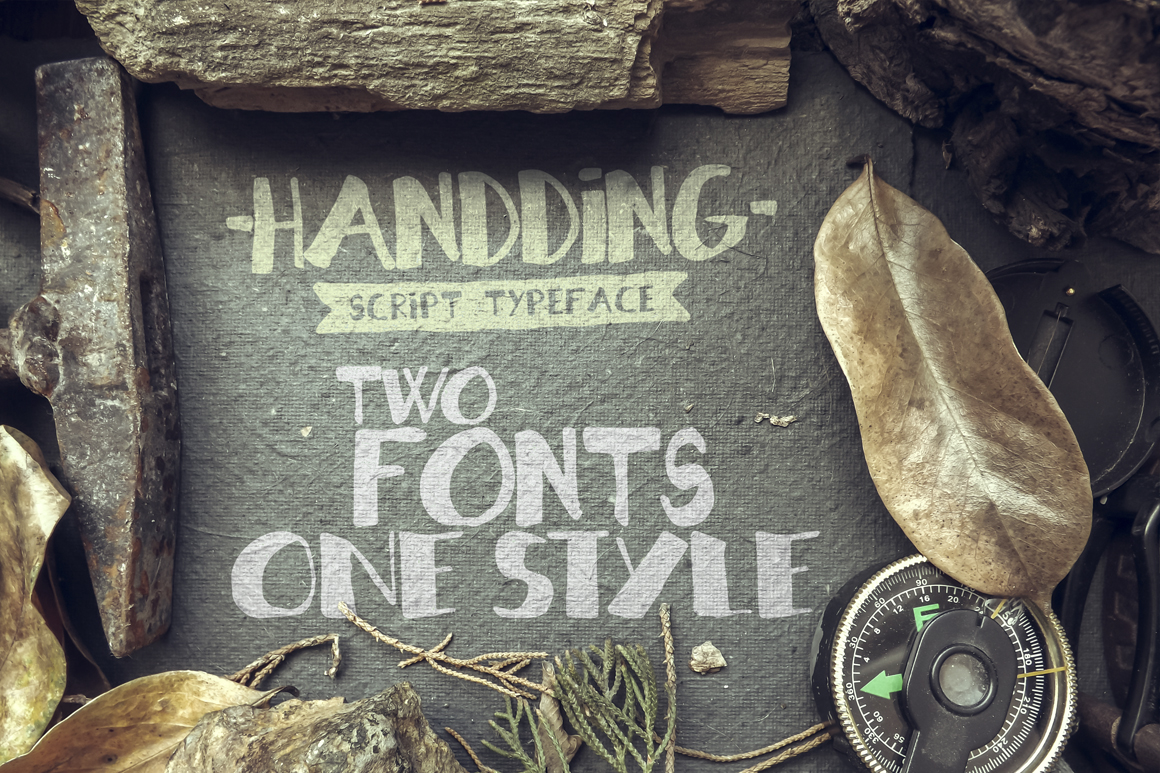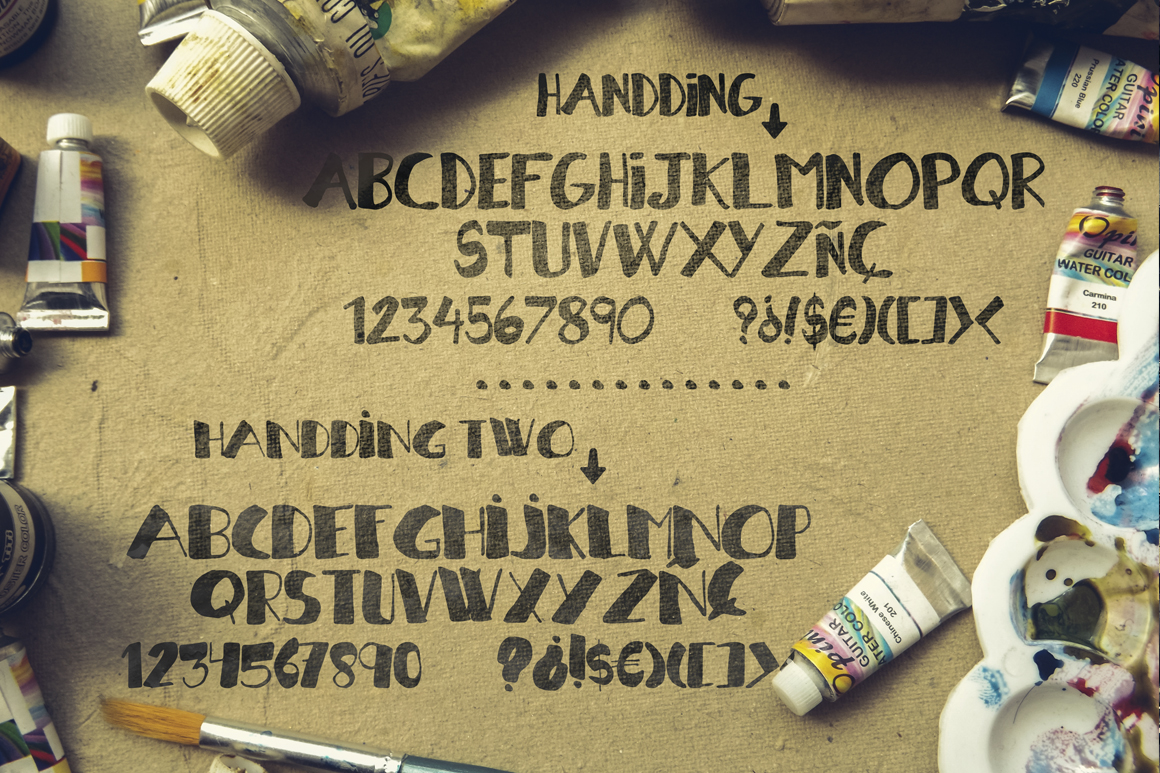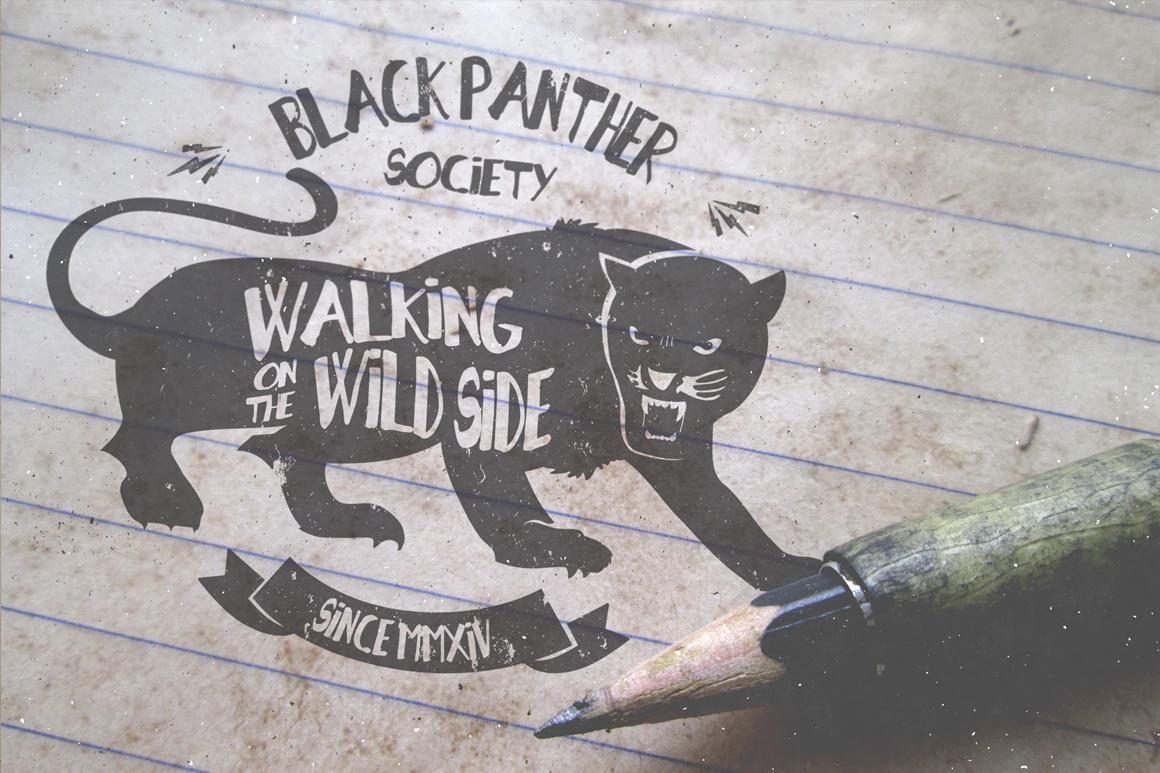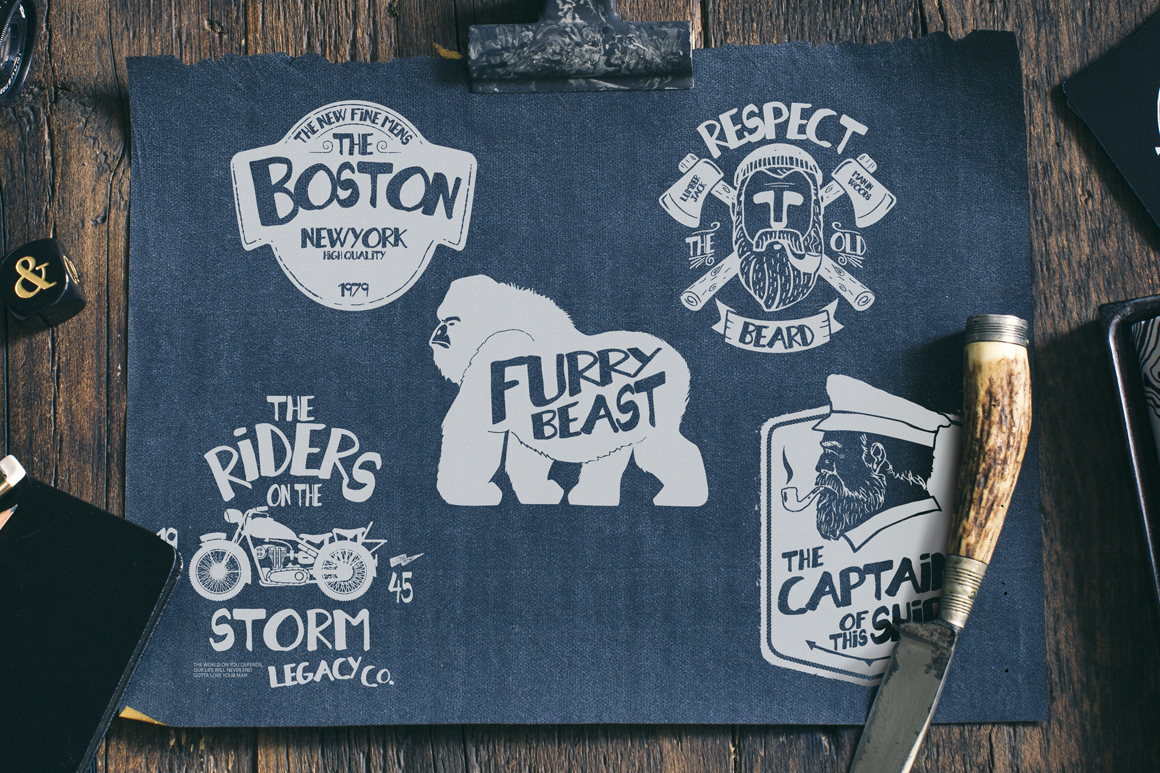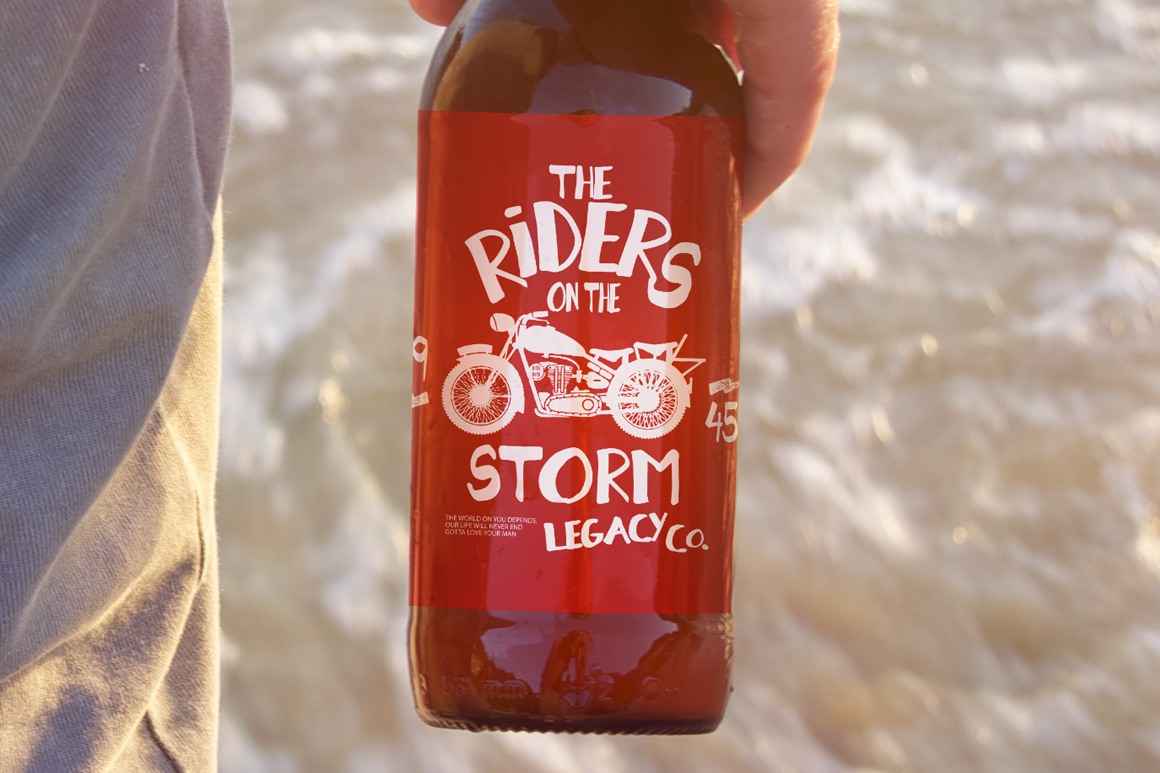
Handding Font
About Handding Font
The Handding and Handding Two font are 2 beautiful fonts that are completely drawn by hand. Both of these fonts are all upper-case script fonts that work great for when you need text to stand out from the rest.